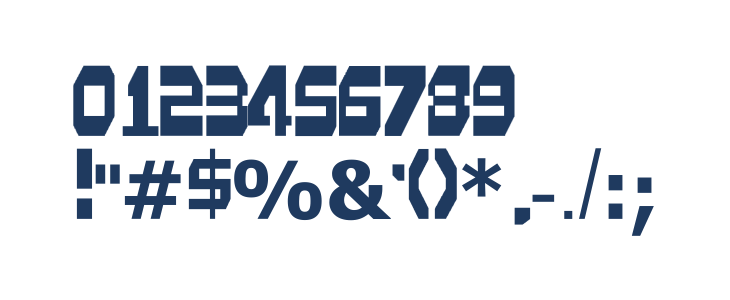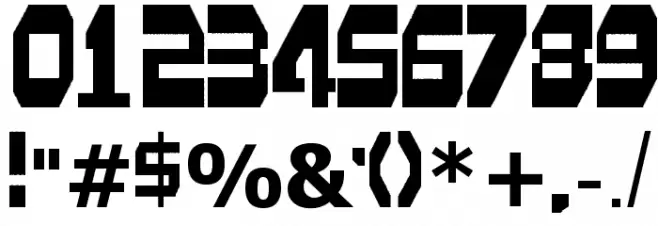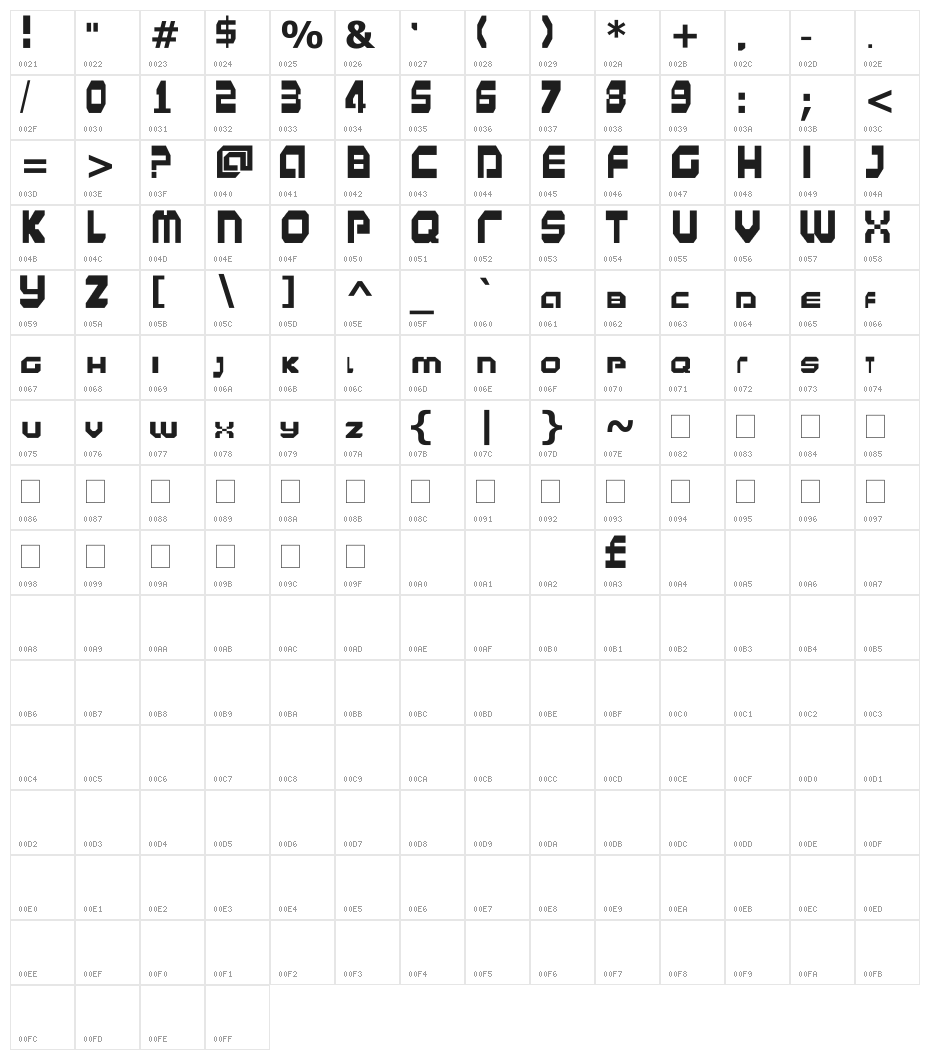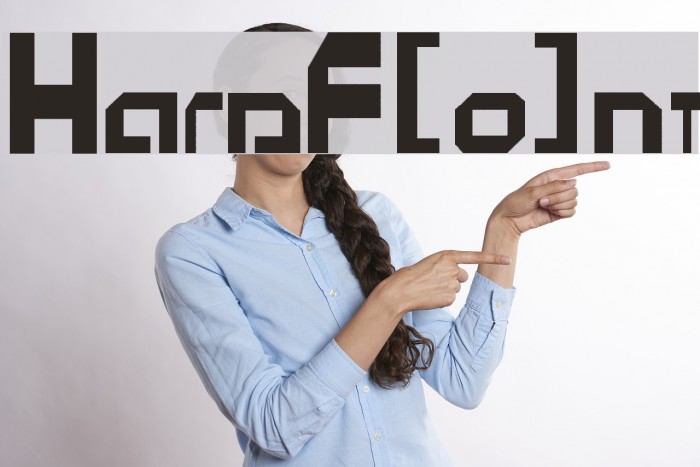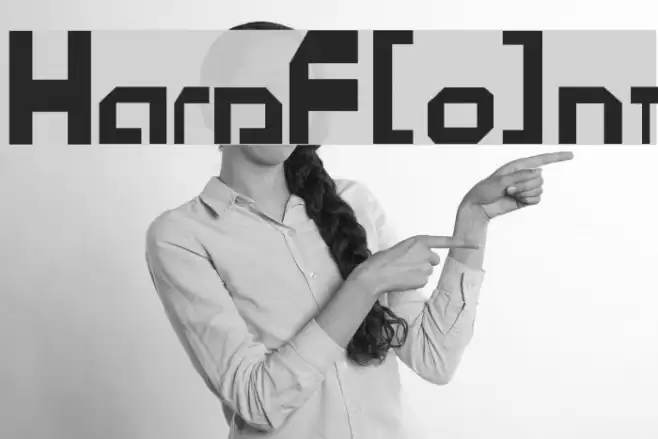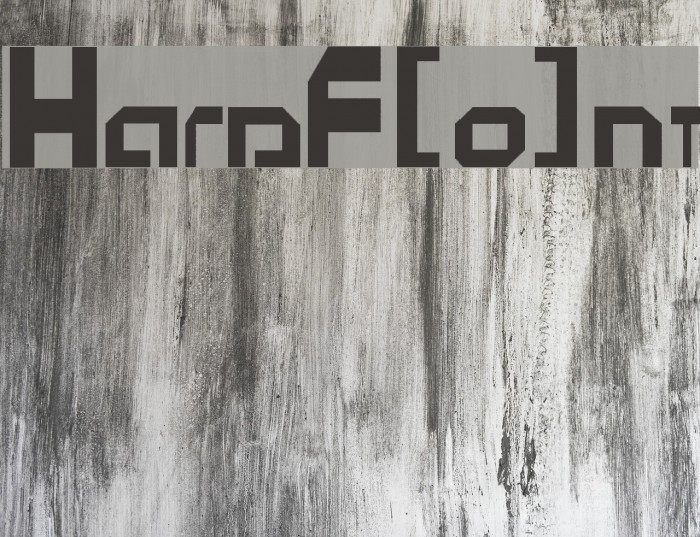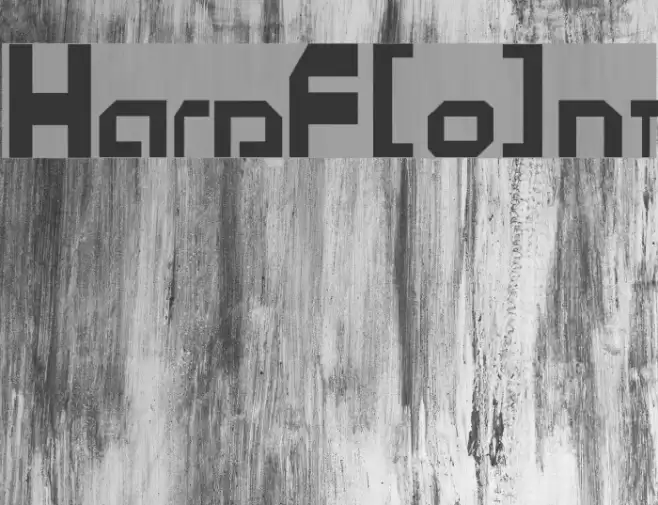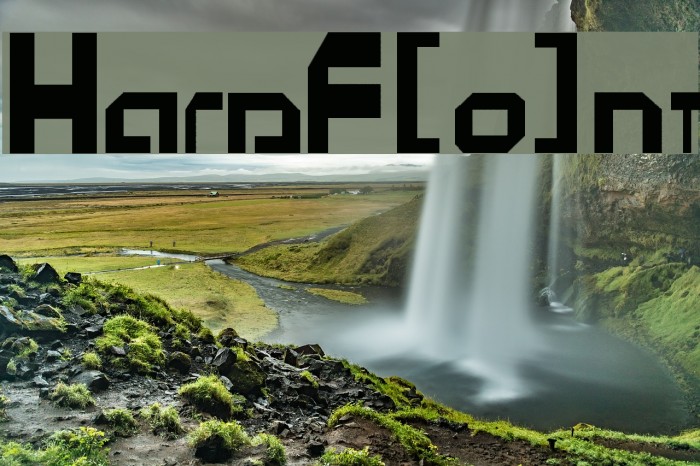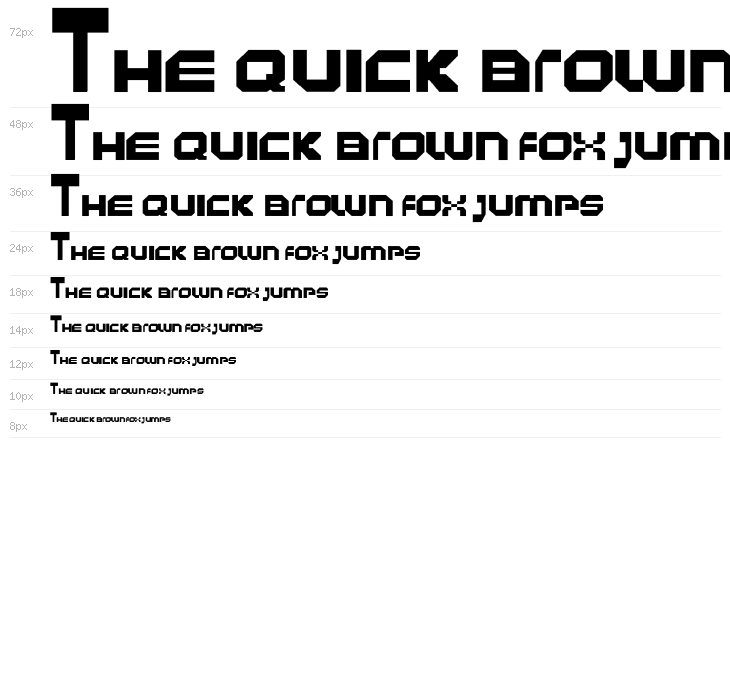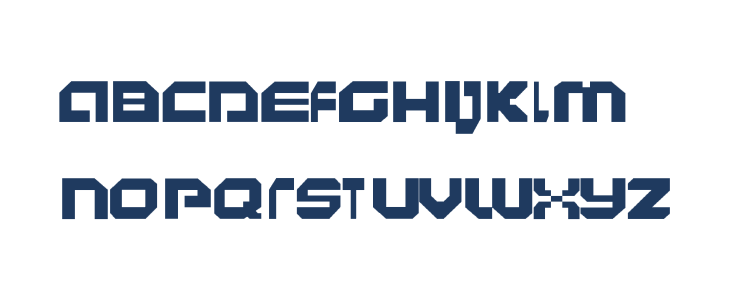
HardF[o]nt Font
HardF[o]nt Description
This font features a bold, geometric design with sharp, angular edges and a futuristic aesthetic. The characters are constructed with a blocky, stencil-like appearance, giving them a strong and impactful presence. The uppercase and lowercase letters maintain a consistent style, with the lowercase slightly smaller but equally bold. Numbers and special characters follow the same design principles, ensuring uniformity across all glyphs. The font's unique style makes it stand out, ideal for projects that require a modern and edgy look.
| Overall Style | Futuristic, Modern |
| Proposed Projects | Ideal for sci-fi themed projects, video game titles, posters, and branding that requires a modern, edgy look. |